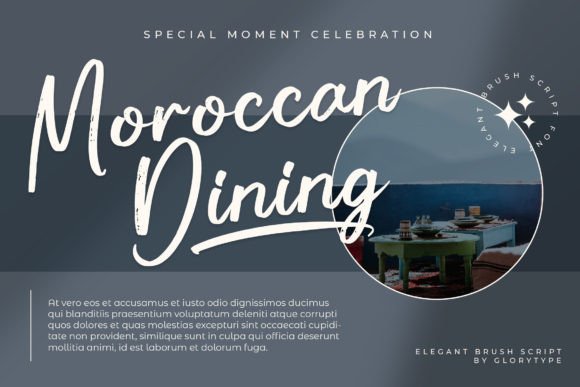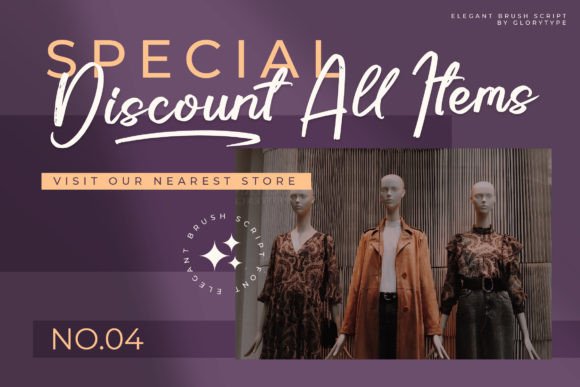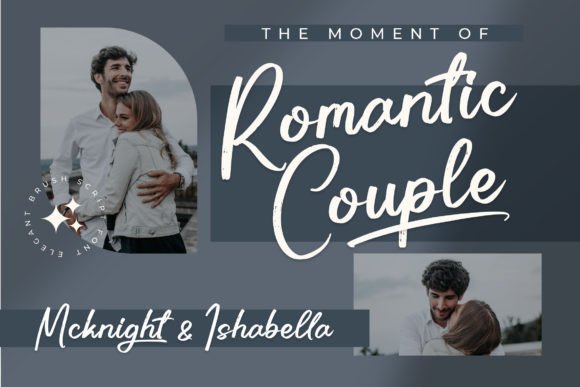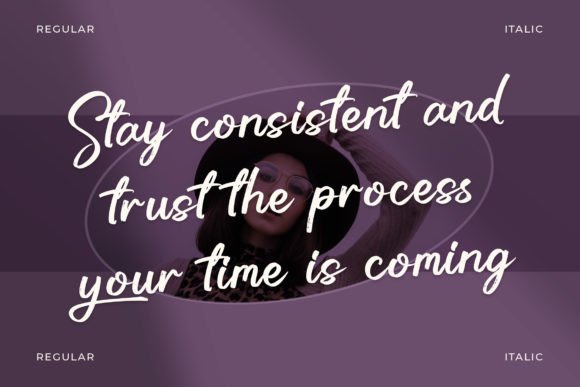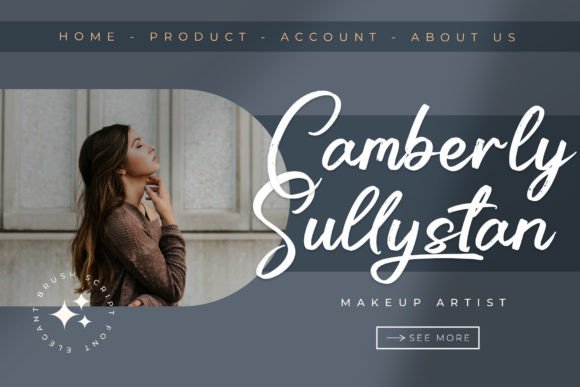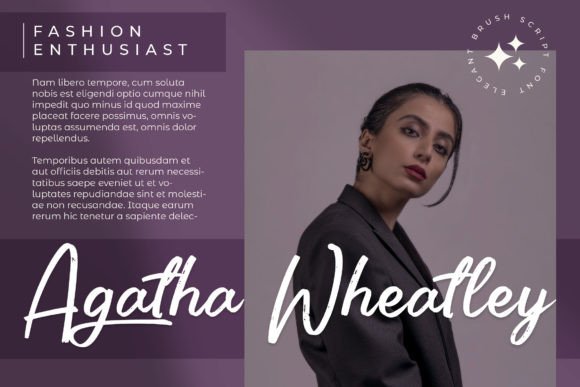
The Dailymilk Font: Elevate Your Designs with Elegant Brush Script
Have you ever been in the middle of a design project, and suddenly, you’re stuck on finding the perfect font? I recall a recent experience where a client requested a logo that exuded elegance and sophistication. After scouring through numerous font libraries, I stumbled upon the Dailymilk font, and it instantly became the perfect fit. In this article, we’ll dive into the world of Dailymilk – an elegant brush script font that’s suitable for a wide range of design projects.
A Personal Review: What I Love About Dailymilk
As a designer, I’m always on the lookout for fonts that can elevate my projects. Here’s what I love about Dailymilk:
- ✨ Elegant and sophisticated: Dailymilk boasts a beautiful, cursive script that’s perfect for projects that require a touch of class.
- ✅ Versatile: This font is suitable for a wide range of design projects, including logos, branding, homeware designs, product packaging, and more.
- 💫 Unique character: Dailymilk has a distinct personality that sets it apart from other script fonts.
While Dailymilk is an excellent font, there are a few minor quirks to be aware of:
- ⚠️ Limited use in body text: Due to its elegant, cursive nature, Dailymilk may not be the best choice for lengthy body text.
- 🤔 Occasional glyph issues: Some users have reported issues with certain glyphs, but these can often be resolved by using OpenType features.
While the origins of Dailymilk are unclear, it’s easy to imagine a designer sitting in a quaint café, sipping milk and brainstorming ideas for a beautiful script font. Perhaps the designer, inspired by the flowing curves of handwritten text, set out to create a font that would evoke a sense of elegance and sophistication.
| What type of projects is Dailymilk suitable for? | Dailymilk is suitable for a wide range of design projects, including logos, branding, homeware designs, product packaging, and more. |
| Can I use Dailymilk for body text? | While Dailymilk is an elegant font, it’s not ideal for lengthy body text. It’s best used for headings, titles, or short paragraphs. |
| Does Dailymilk support OpenType features? | Yes, Dailymilk supports OpenType features, including stylistic alternates, glyphs, and ligatures. |
In conclusion, Dailymilk is an elegant brush script font that’s perfect for designers, crafters, and creative hobbyists looking to add a touch of sophistication to their projects. With its versatility, unique character, and OpenType features, Dailymilk is sure to become a favorite in your font library.